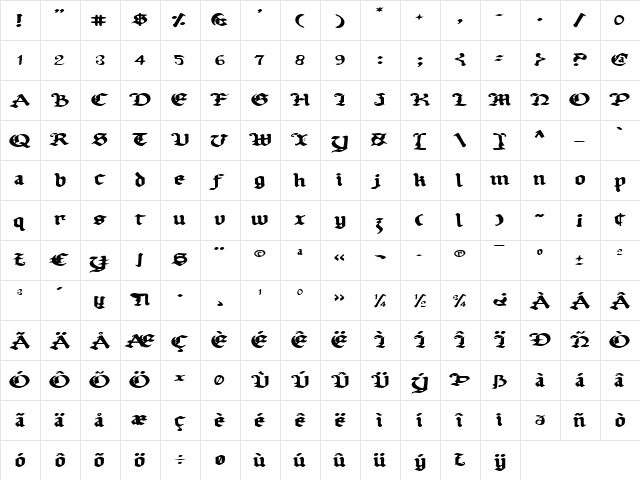
Uberh Expanded Font Preview
Uberh Expanded Expanded
Design Context for Uberh�� Expanded Typeface
Uberh�� Expanded is a composed and adaptable typeface that performs quietly and consistently across a wide range of design contexts.